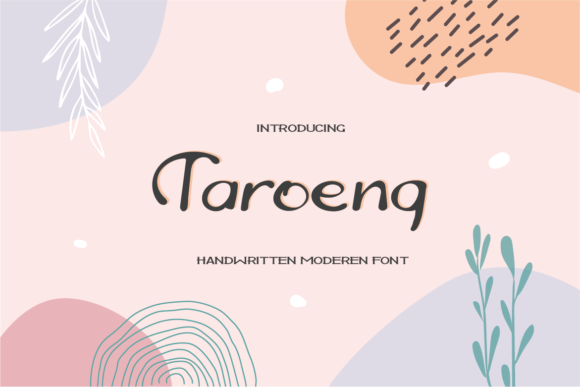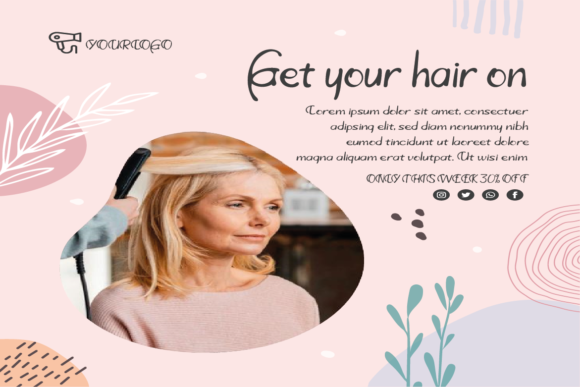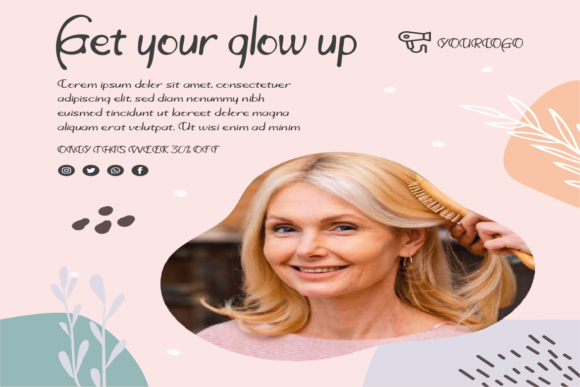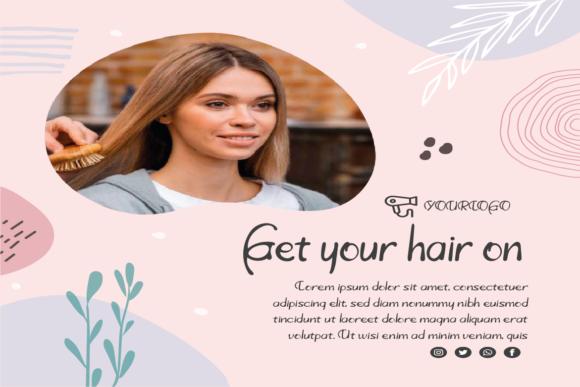
About Taroeng Font
Taroeng is a cute handwritten font that adds a playful and lively touch to your designs. With its sweet and energetic style, this font is perfect for bringing a sense of joy and vibrancy to your projects.
The lively and expressive nature of Taroeng makes it a great choice for designs that need a fun and upbeat feel. Whether you’re creating greeting cards, invitations, posters, or any other design that aims to evoke a sense of positivity and liveliness, Taroeng will enhance your project with its lively and spirited appearance.
The hand-drawn quality of Taroeng adds a personal and authentic feel to your text. Each letter is crafted with a sense of energy and whimsy, making your designs feel more relatable and engaging. This makes Taroeng ideal for creating personalized messages, quotes, or any design that requires a touch of individuality.
The versatility of Taroeng allows it to be applied to various design themes and styles. Its playful and lively appearance can work well in children’s books, playful branding, social media graphics, and more. Its charm and energy can bring a delightful touch to any design.
In addition, Taroeng is easily readable, ensuring that your messages are conveyed clearly. This makes it suitable for a wide range of applications, from digital designs to printed materials.
In conclusion, Taroeng is a cute handwritten font that adds a playful and lively touch to your designs. Its energetic style, hand-drawn quality, and versatility make it a wonderful choice for brightening up your projects. Let Taroeng bring a sense of joy and vibrancy to each of your design endeavors!